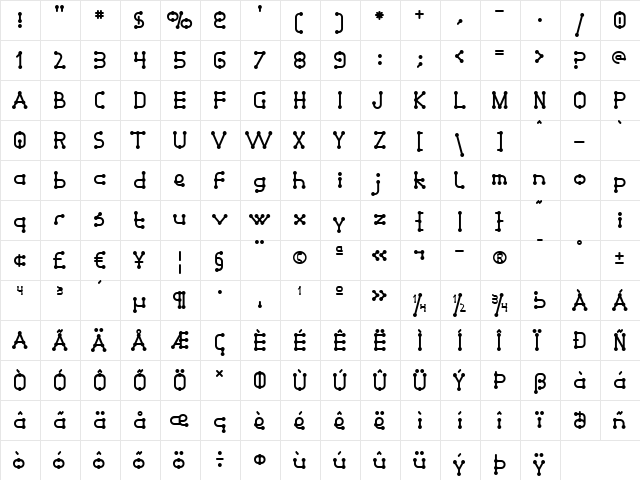
Circuit Closed
Design Context for Circuit Typeface
Circuit takes a measured approach to typography — its balanced proportions and neutral character make it a reliable workhorse for both digital and print work.